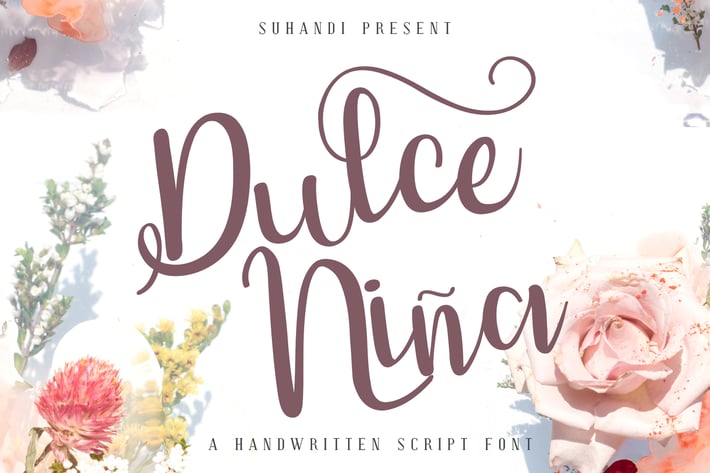
Dulce Niña Script Font
A beautifully handwritten & designed script font, Has a smooth, classy & sophiscated feel.
Accentuate Glyphs
Basic Ligatures
Handwritten font
A beautifully handwritten & designed script font, Has a smooth, classy & sophiscated feel.
Accentuate Glyphs
Basic Ligatures
Handwritten font